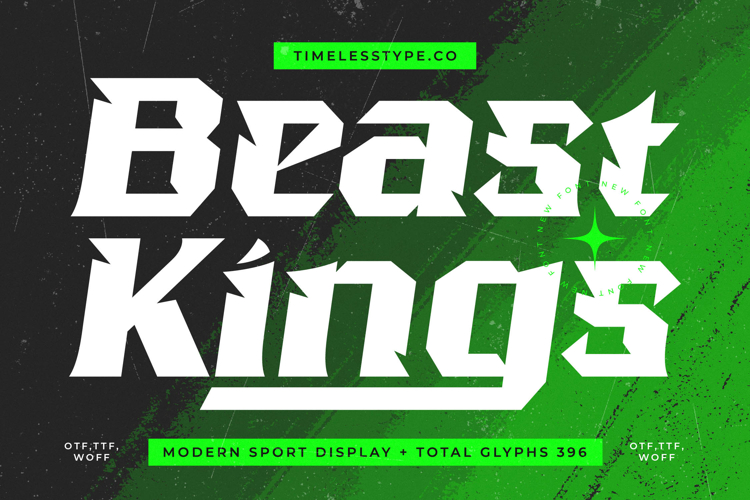
Beast Kings - Modern Sport Display
Command attention with Beast Kings - Modern Sport Display, a typeface engineered for maximum visual impact and unyielding energy. This font radiates an aura of strength and modernity, characterized by its aggressive angles and powerful, condensed letterforms. It's the ultimate choice for projects demanding an immediate, authoritative presence, perfectly embodying speed and competitive spirit.
Experience unmatched versatility with Beast Kings - Modern Sport Display, meticulously crafted for optimal legibility even at large scales. Its unique geometric construction ensures a crisp, high-contrast finish that cuts through visual clutter. With its extensive multilingual support, Beast Kings - Modern Sport Display adapts seamlessly across global markets, making it incredibly versatile for international projects.